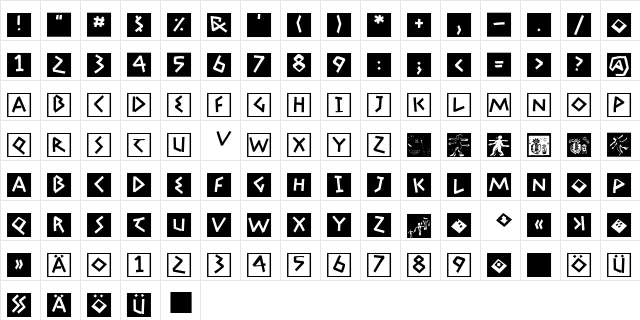
AdonisGreekSquares Regular Font Preview
AdonisGreekSquares Regular
Design Context for AdonisGreekSquares Typeface
AdonisGreekSquares is a composed and adaptable typeface that performs quietly and consistently across a wide range of design contexts.